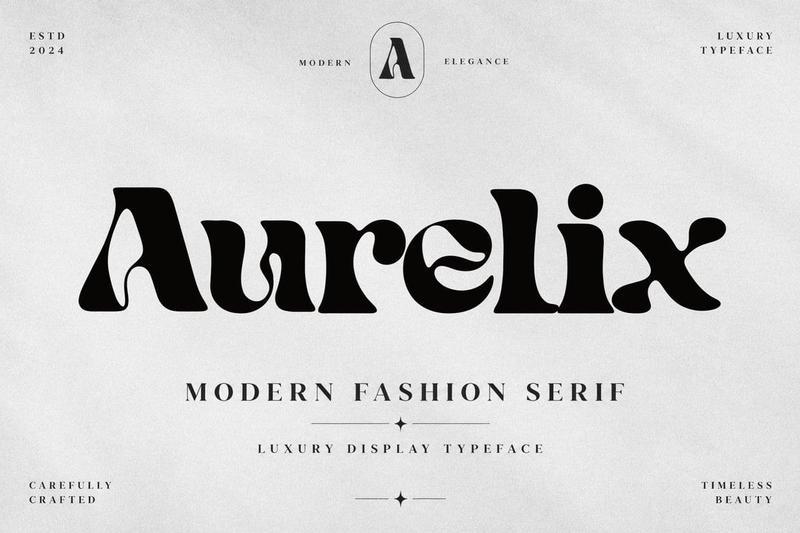
Aurelix | Modern Fashion Serif WEXNVML
**Aurelix** is a bold decorative display typeface with a stylish retro attitude, soft psychedelic curves, and dramatic editorial energy. Designed for expressive headlines, posters, fashion branding, album covers, packaging, logos, social media graphics, and standout visual identities.
With its heavy black shapes, organic cutouts, playful curves, and vintage-inspired rhythm, **Aurelix** brings a strong artistic personality to any design. It feels nostalgic but modern, elegant but experimental perfect for projects that need a confident and memorable typographic voice.